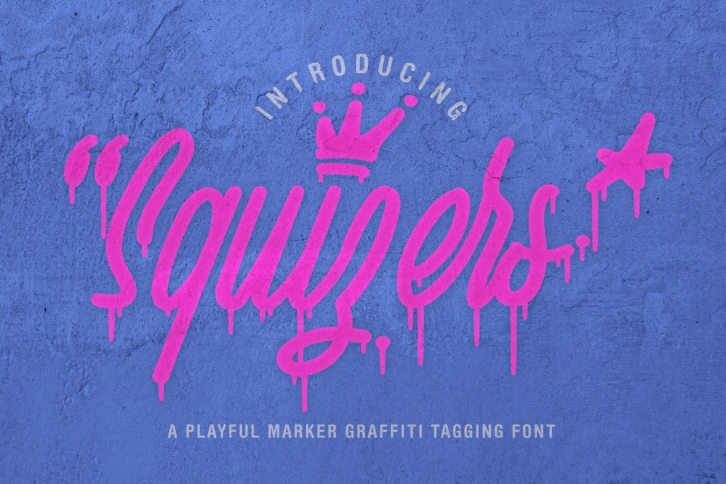
Squizers Graffiti Tagging is a great font that was designed by semut hitam. Imagine the amount of combinations you can create using this font! The archive is 1.6 MB and it was released on June 17, 2019. Squizers Graffiti Tagging looks beautiful on wedding invitations, greeting cards, logos, posters, labels, t-shirt designs, logos, business cards and is perfect for use in ink or watercolor works, fashion, magazines, packaging and food menus, children's books and more!